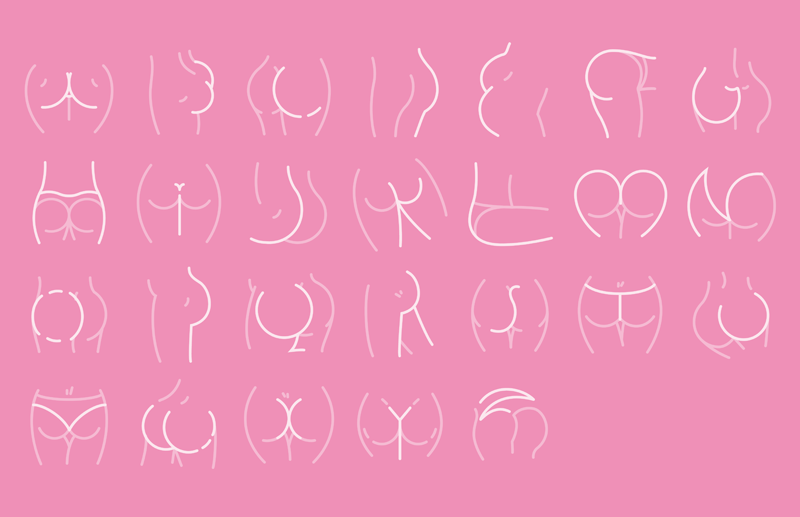
Note by Loretta Aho | |
This cheeky font works by layering the two styles in different colors. You'll want to first layout the "Base" font, and color it. Once everything's in place, duplicate the text box (place it on a new layer for easier control), change it to the "Letter" font, and change the color. As long as the text boxes stay aligned, you should get a good effect. If you want to change the text to something different, I recommend using ‘Find and Replace’ so you can do it once for both layers. |